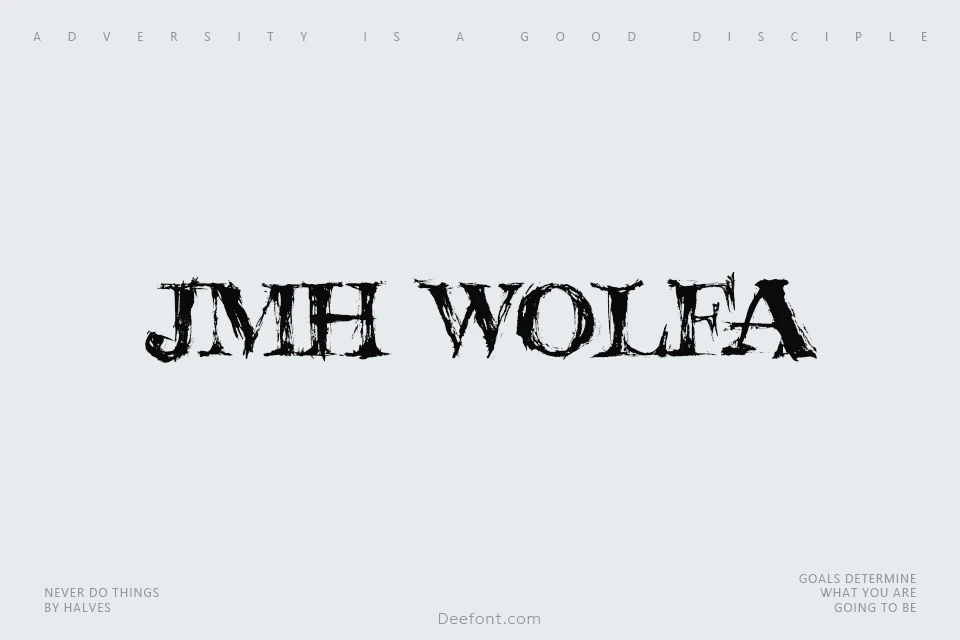
JMH Wolfa Font
JMH Wolfa Font is a bold and rugged display typeface designed by Jorge Morón, perfect for creating vintage or grunge-inspired designs. With its distressed texture and uneven edges, it evokes a sense of movement and energy, making it ideal for horror-themed projects, Halloween posters, or edgy branding. The font features uppercase letters, numbers, and special characters, all styled with the same textured effect. Free for personal use, JMH Wolfa adds a unique personality to headlines, logos, and posters while delivering a striking visual impact. Its bold appearance ensures your designs stand out with a dramatic and captivating aesthetic.
Designed by:Jorge Morón